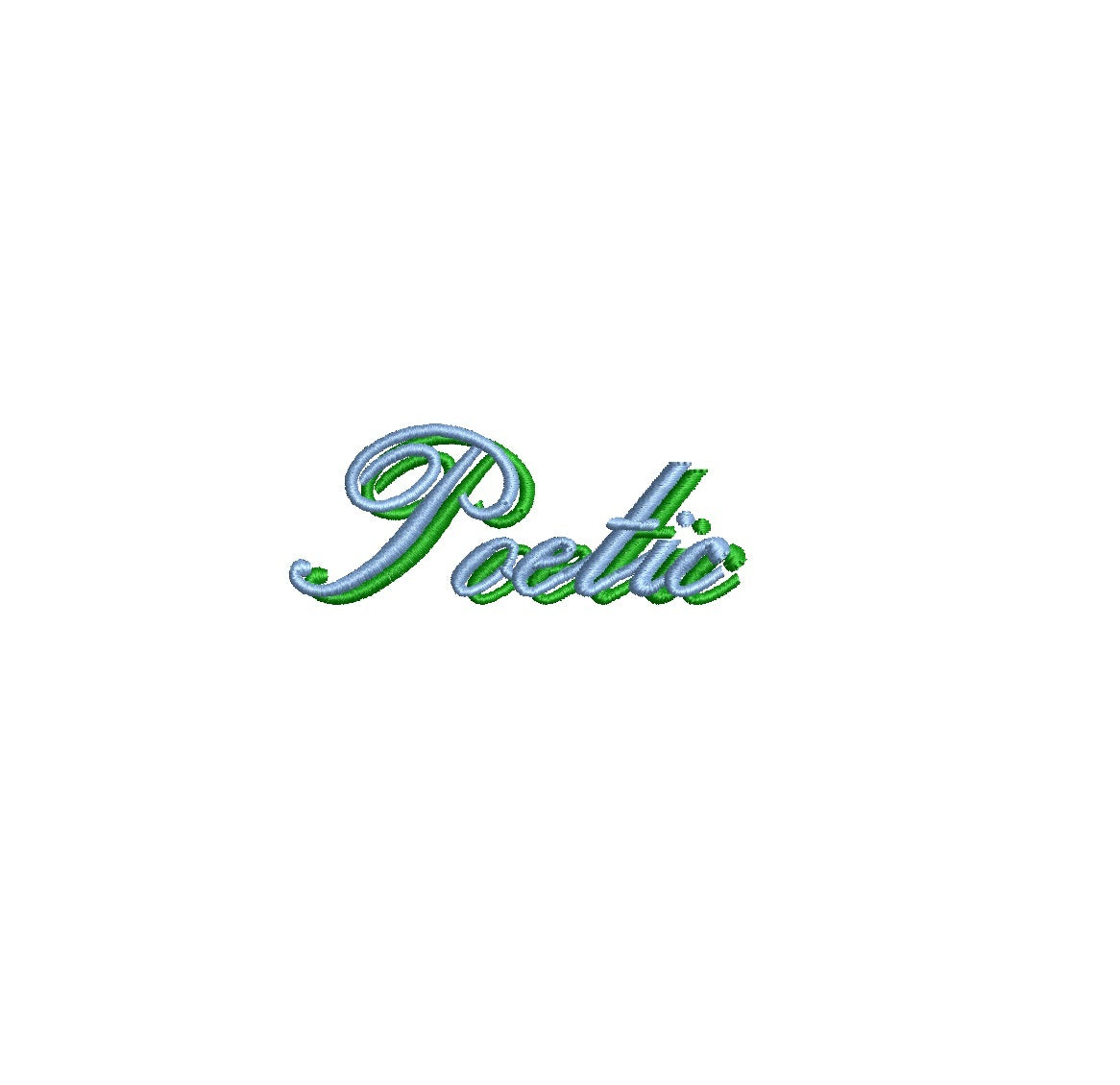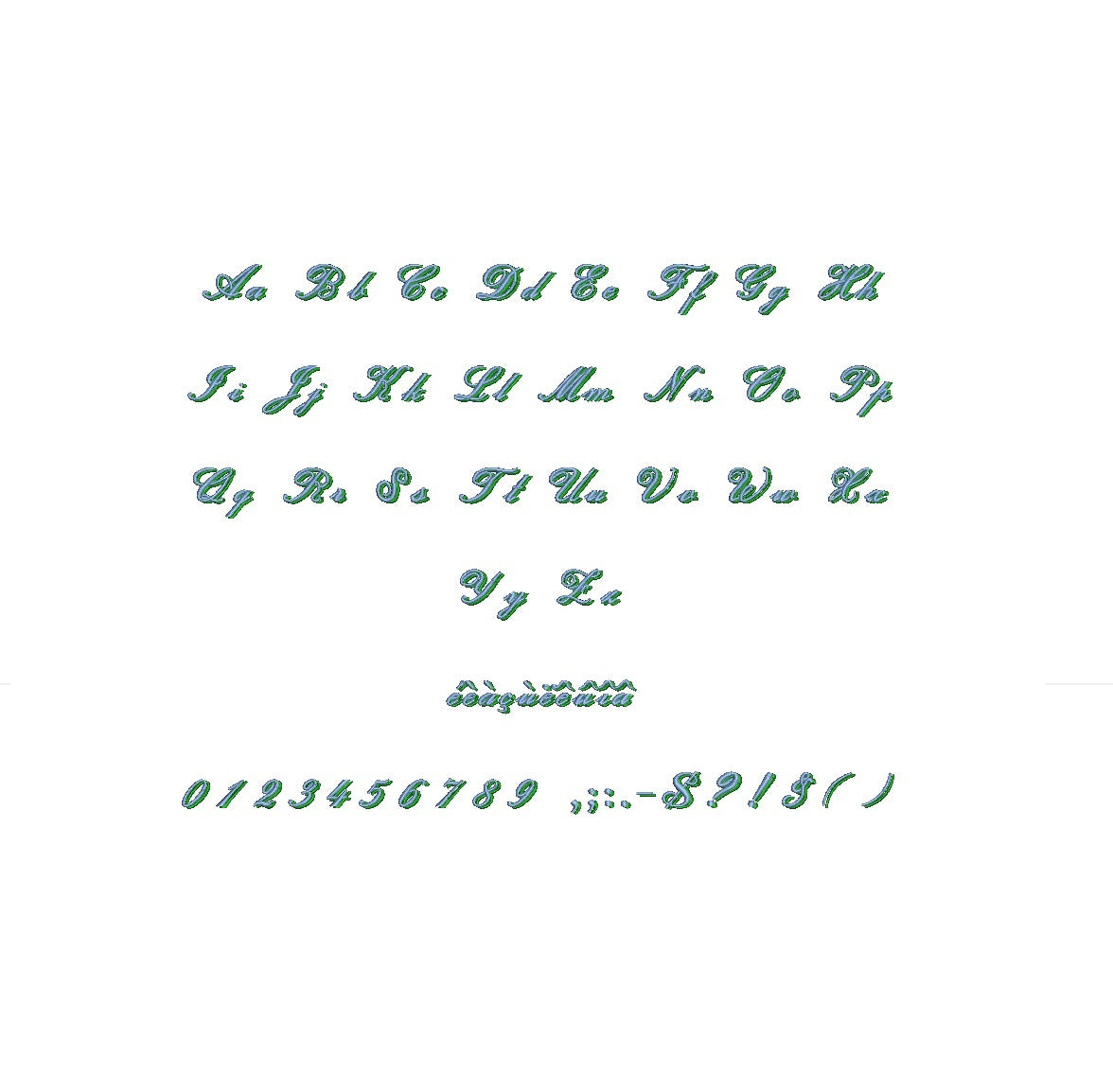
Elevate your embroidery with the enchanting Poetic Shadow ESA font. Designed for Wilcom Studio e4.5.6 and Hatch 3 versions and newer, this font seamlessly combines artistic elegance and compatibility. Craft captivating designs with its alluring shadow effect, adding depth and intrigue to your lettering. Ideal for diverse applications, from monograms to sophisticated text layouts. Effortlessly unleash your creativity as Poetic Shadow ESA font infuses sophistication into your embroidery. Elevate your craftsmanship and leave a lasting impact. Choose this font to transform your designs into poetic works of art that stand out.